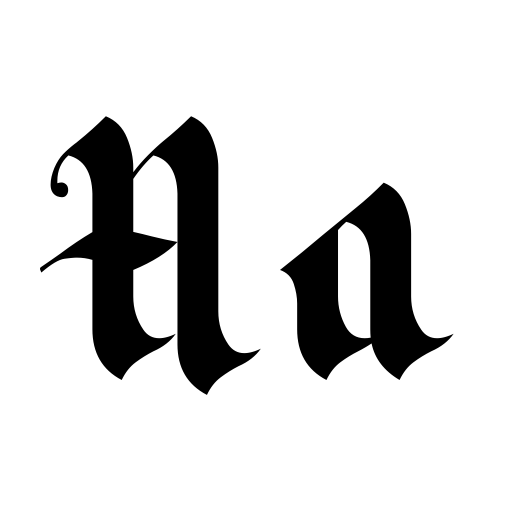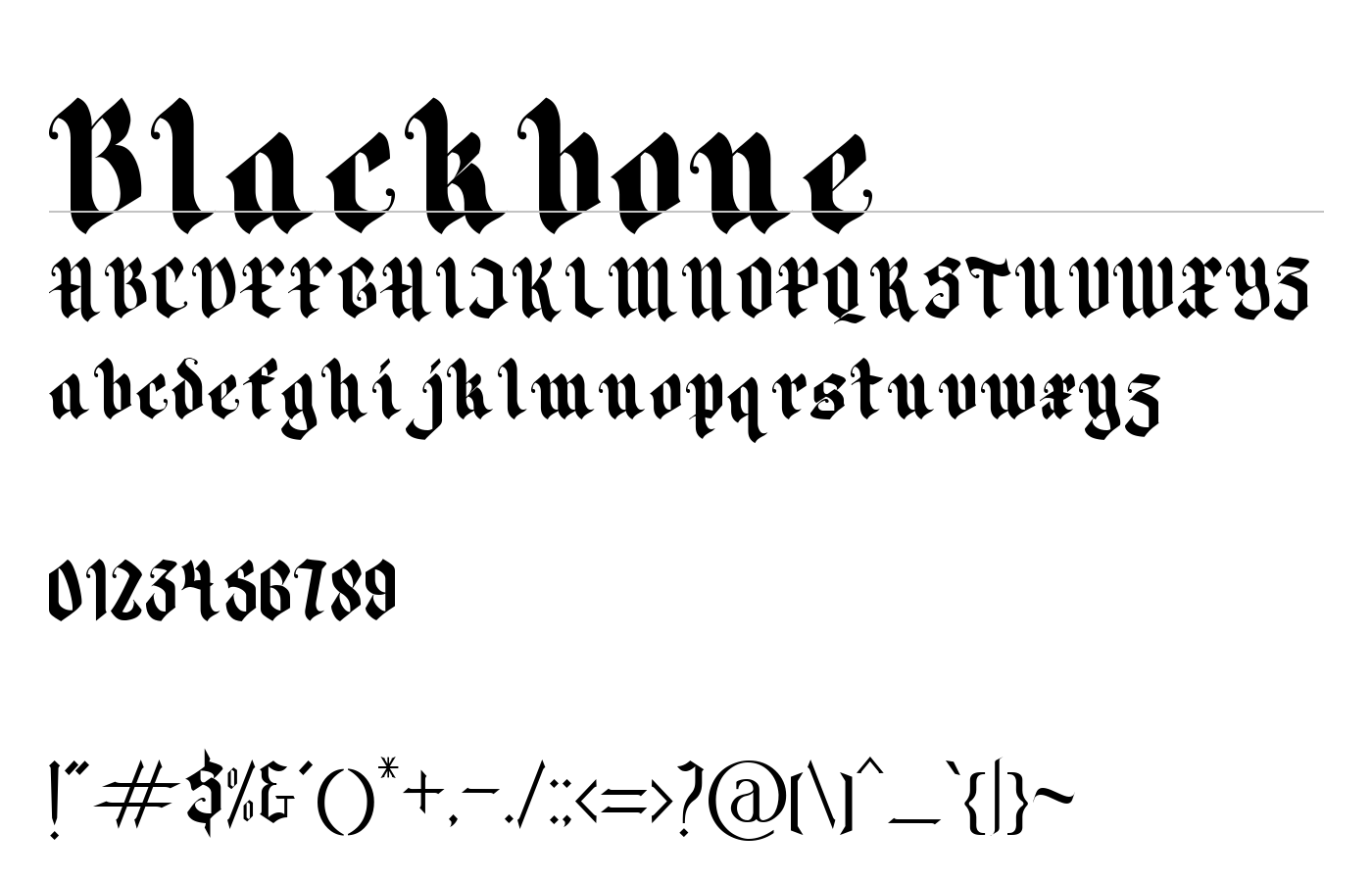
Blackbone is a bold blackletter-style font that embodies a strong, historic character with sharp angular strokes and dramatic thick-and-thin contrast. Its ornate uppercase and lowercase letters carry a traditional Gothic vibe, making it perfect for projects seeking a vintage, medieval, or rebellious look. This font works well in logos, posters, and headlines where a striking, old-world presence is desired.
Blackbone Font
About Blackbone Font